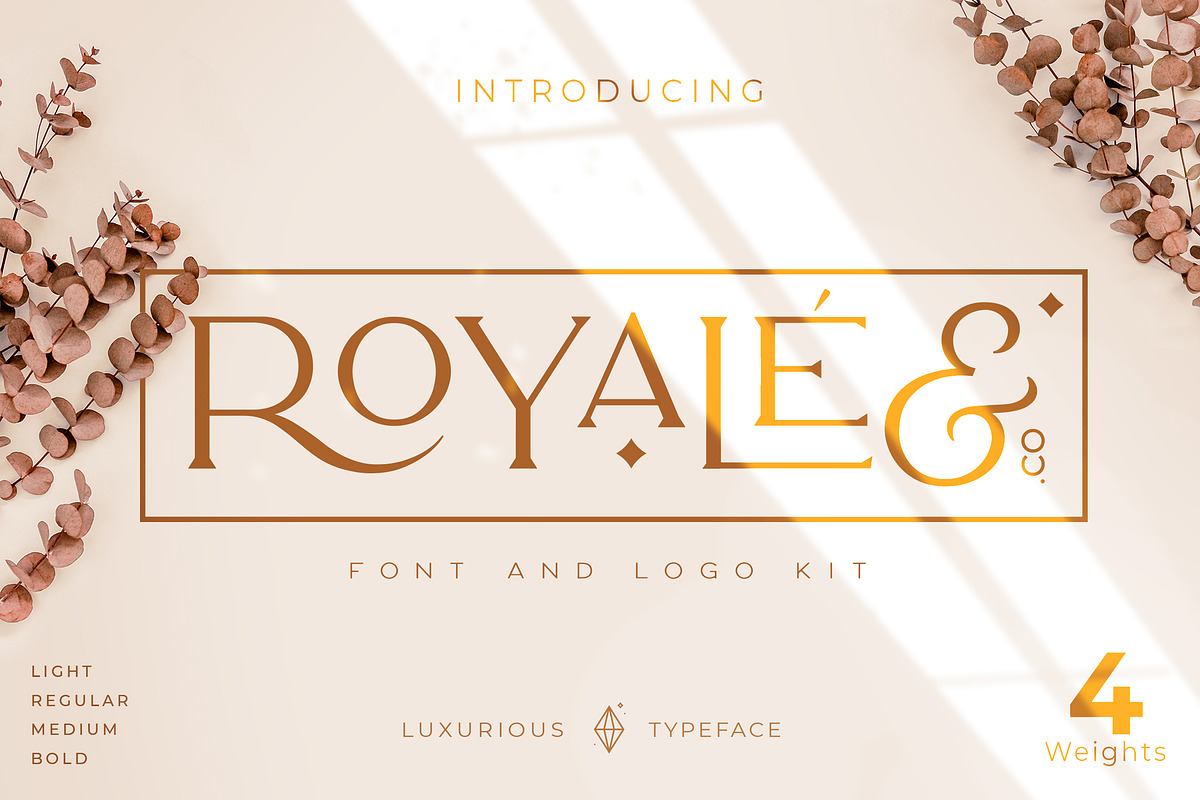
Please note, you must purchase this font for commercial use. However, you can easily download Royale Luxurious Typeface Free Download for personal use and testing purposes. Royale Luxurious Typeface is an elegant and refined typeface designed to bring a sense of prestige and sophistication to your projects. Perfect for high-end branding, luxury logos, invitations, and upscale editorial designs, this font exudes elegance and exclusivity. Its smooth curves, combined with stylish serifs, make it ideal for projects that require a polished and luxurious look. Whether you're working on a luxury brand identity, a high-profile event invitation, or a premium product packaging, Royale Luxurious Typeface Free Download will elevate your design with class and grace. Download Royale Luxurious Typeface Free Download today and explore its potential before opting for a commercial license.